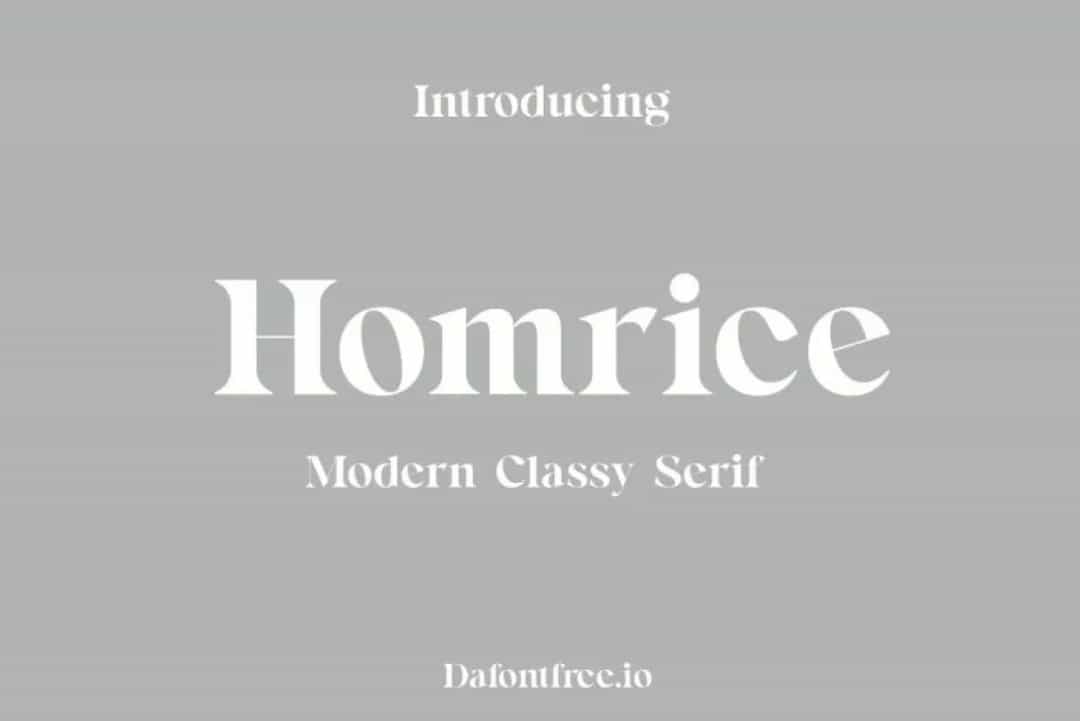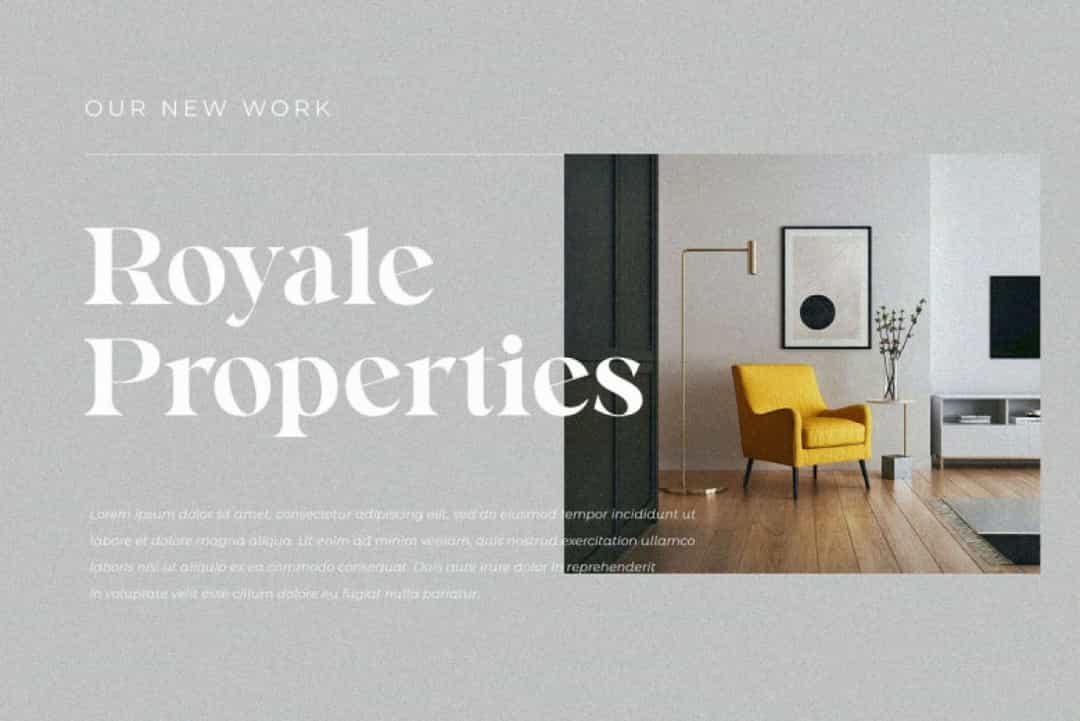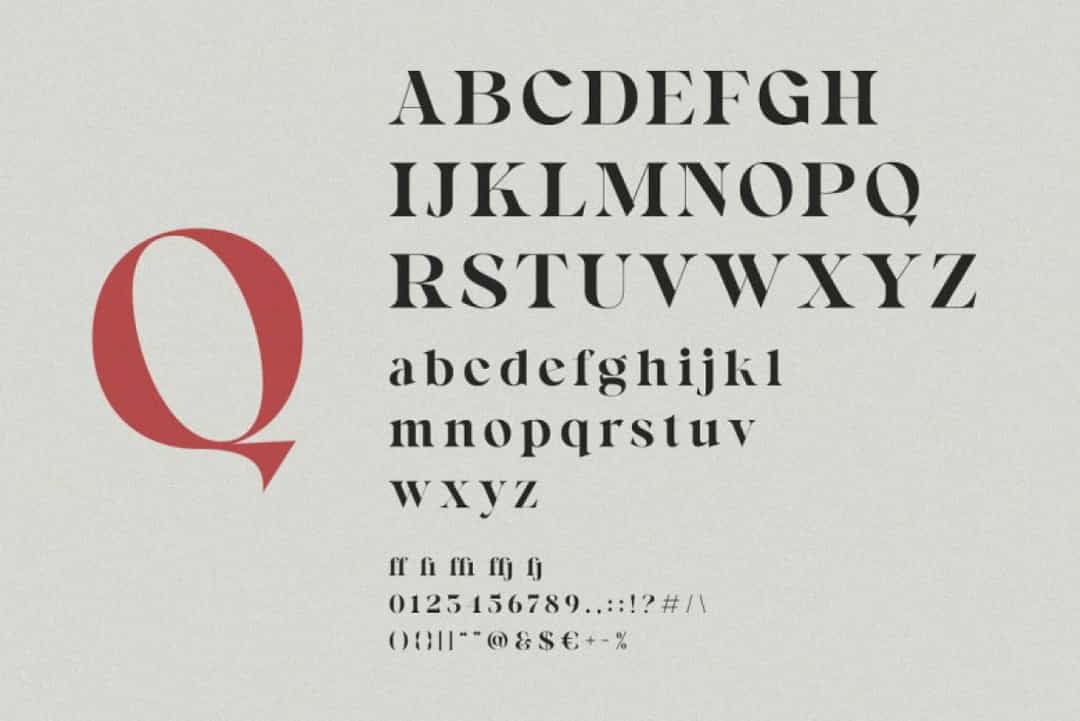
Homrice is an elegant serif typeface suitable for use as the header font in logos, branding materials, magazines, product packaging, invitations and invitation cards. With clean lines and gentle curves that exude sophistication and class, this font adds extra glitz to any project it graces.